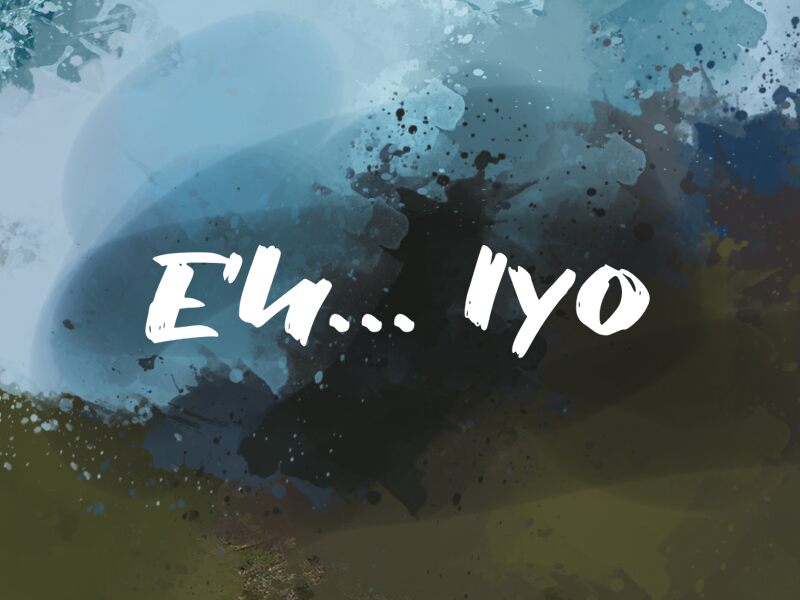
Eh Iyo
Eh Iyo is a bold and wide brush font designed by Wahyu Eka Prasetya. It's perfect for making eye-catching headlines, posters or logos with its unique and playful character. Eh Iyo will also give your projects an artistic edge when used for book covers, social media posts, flyers and business cards.